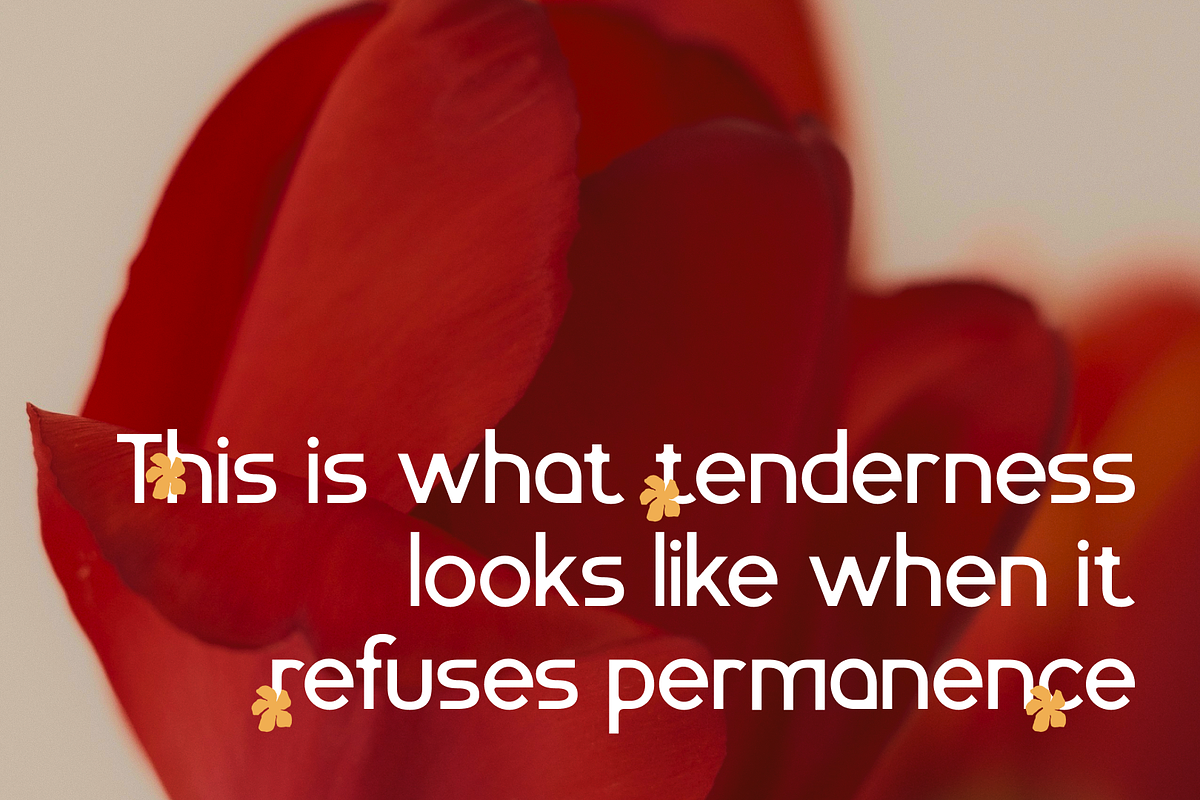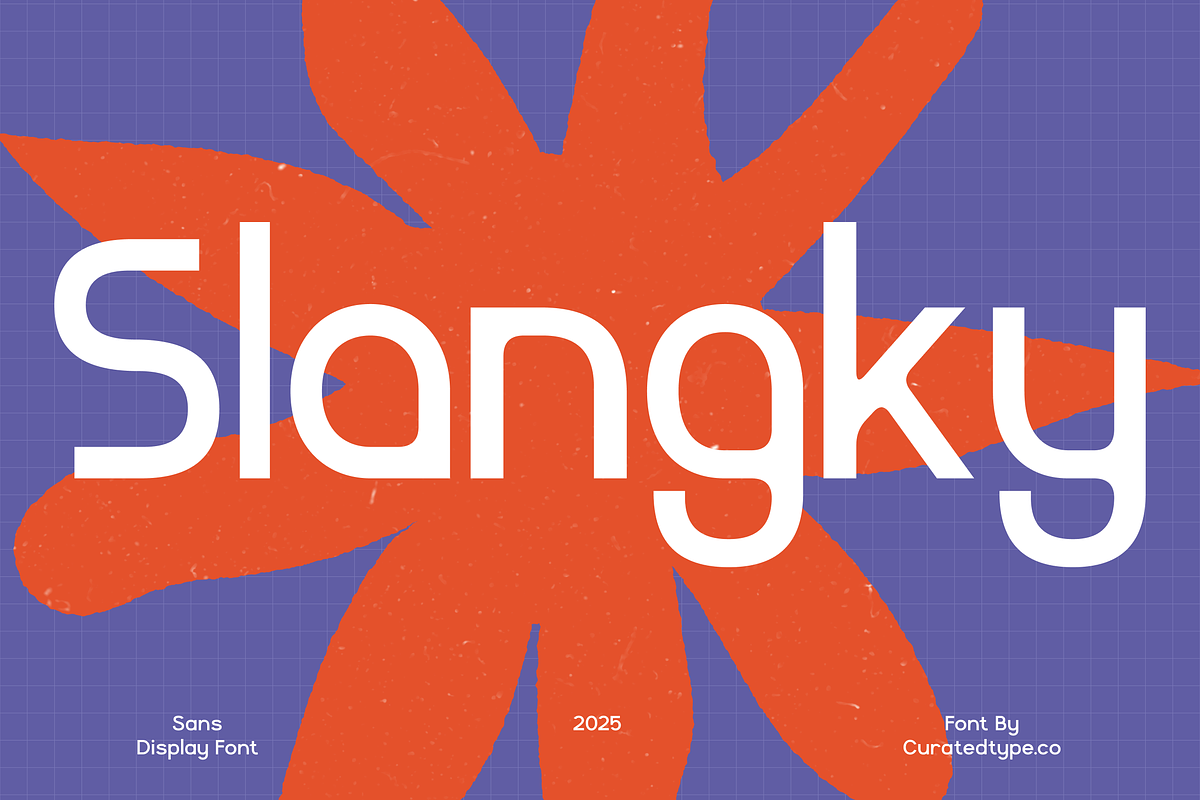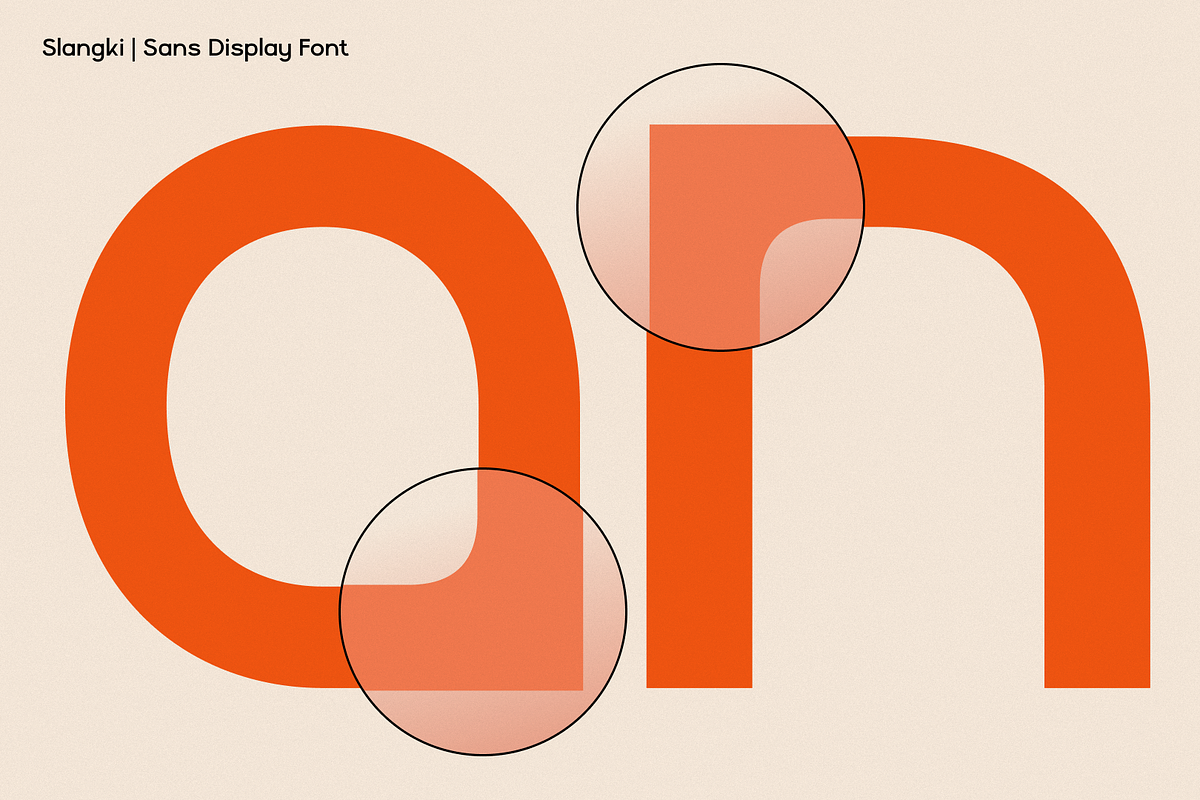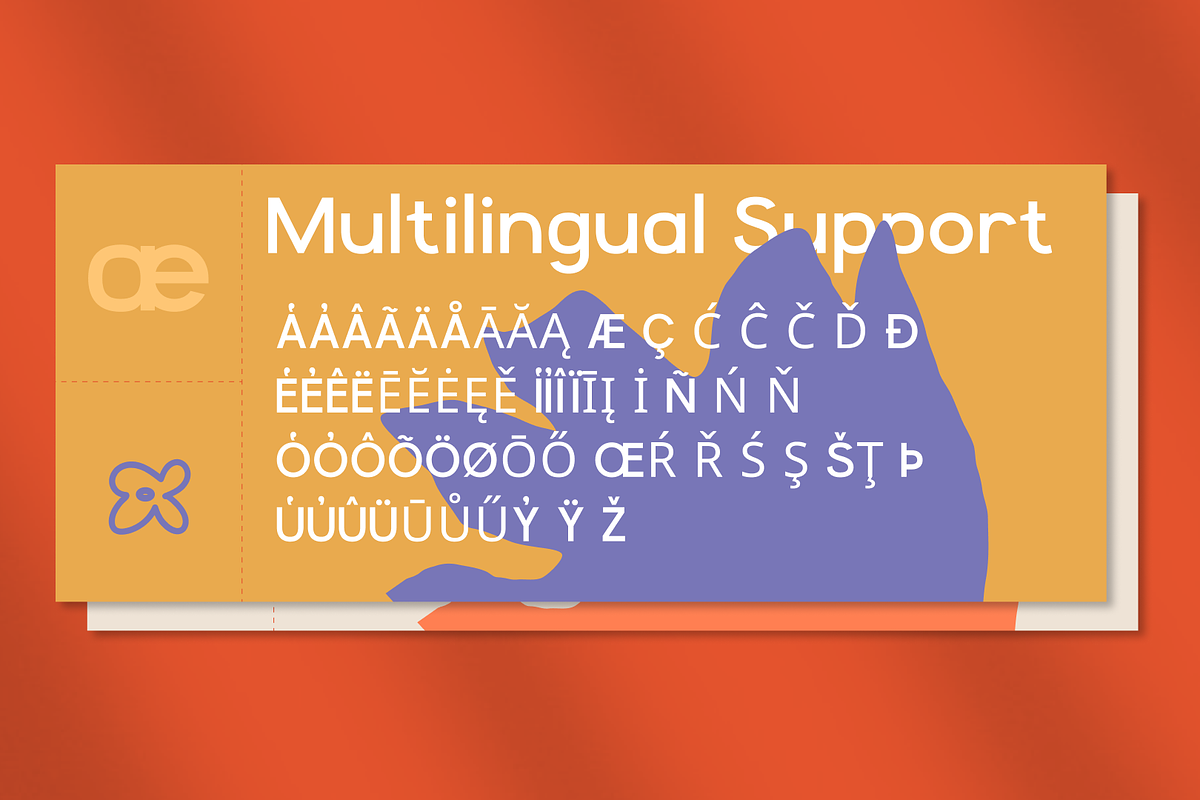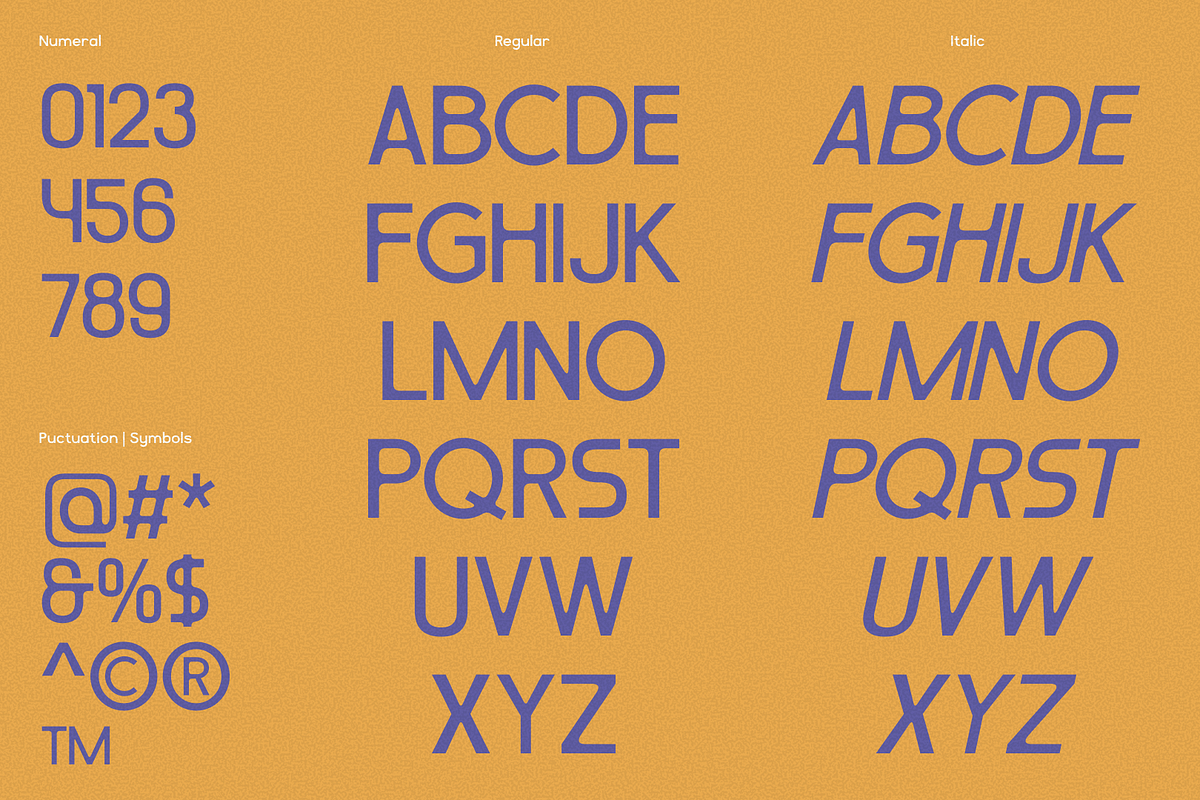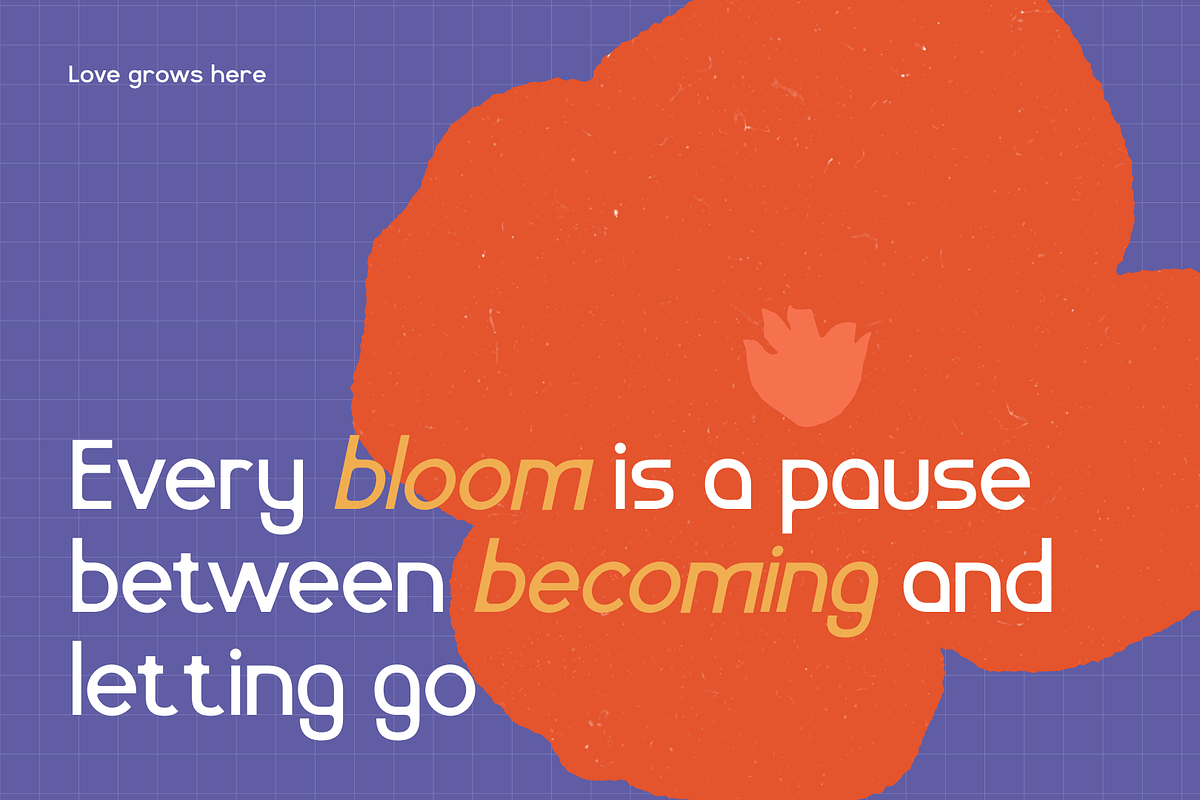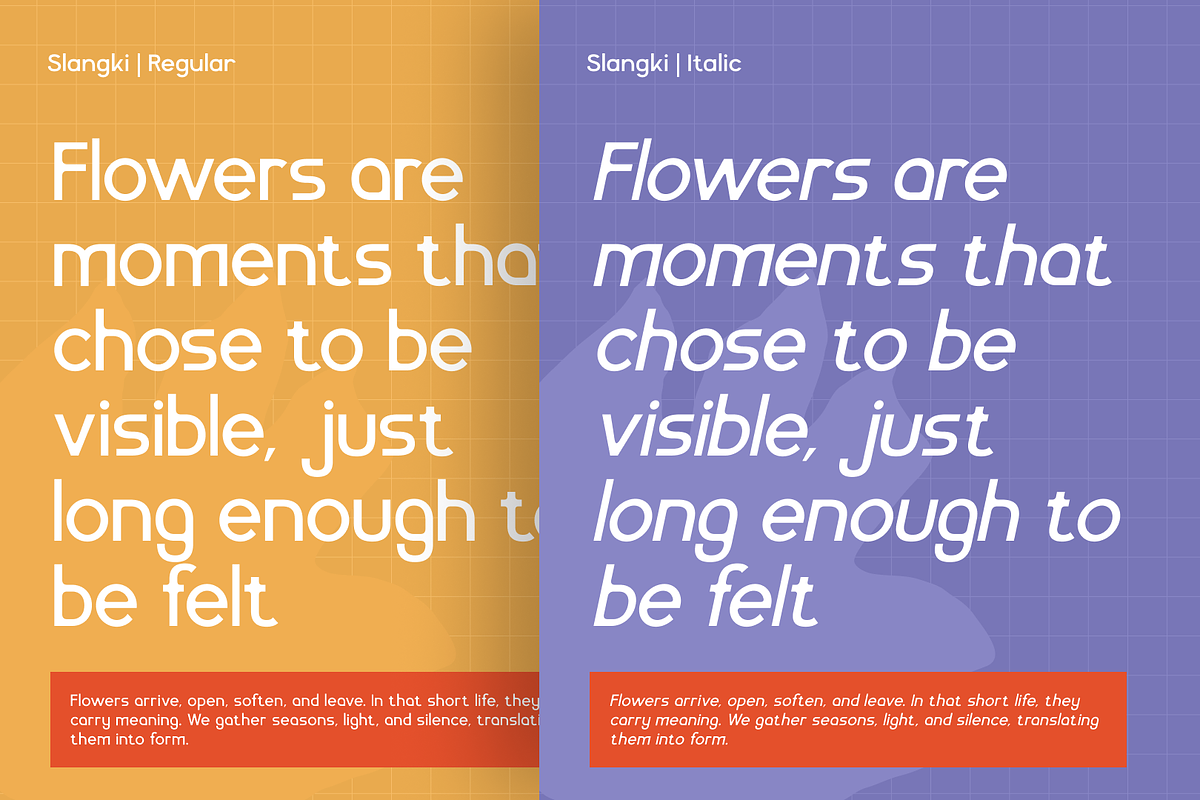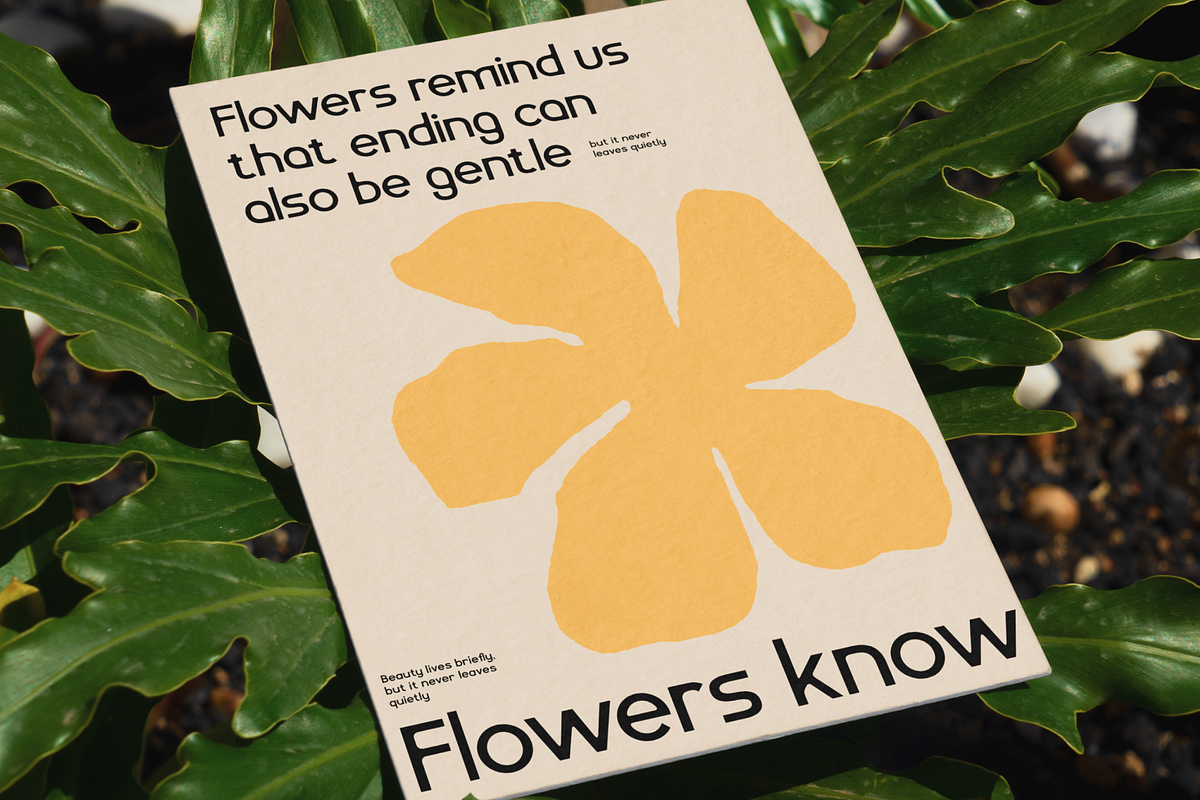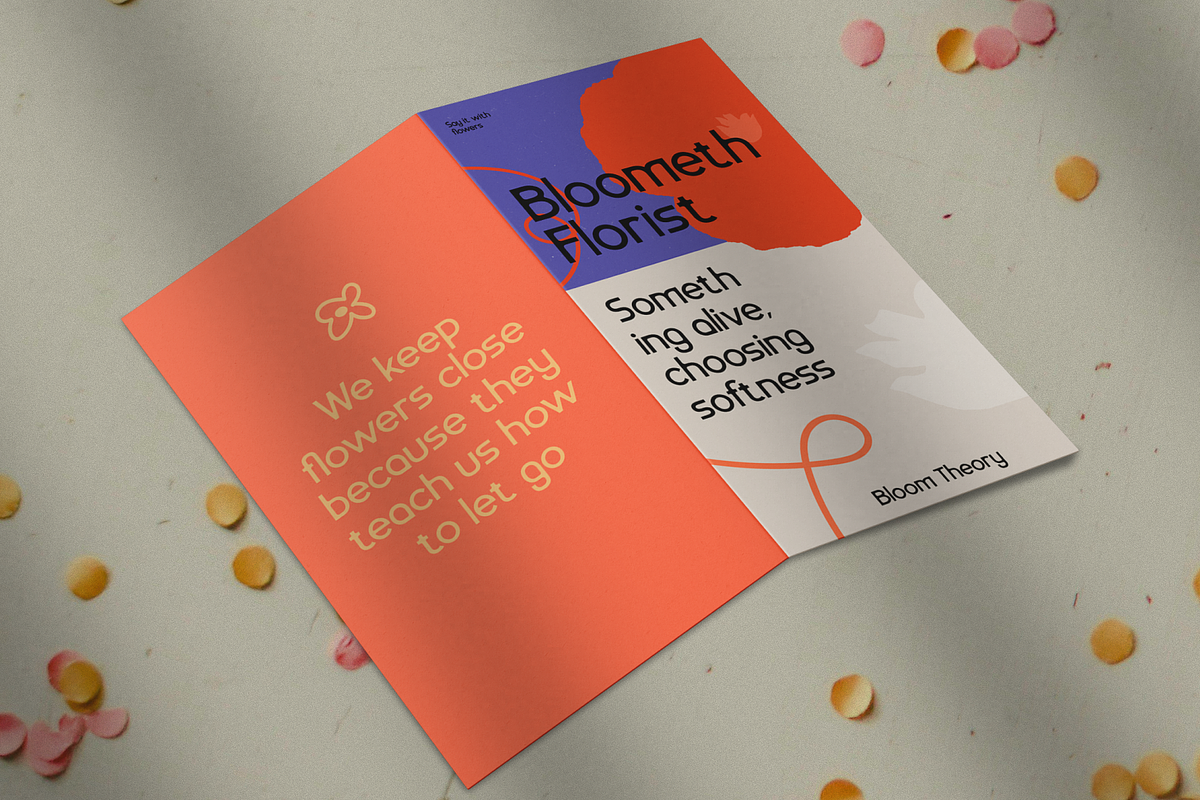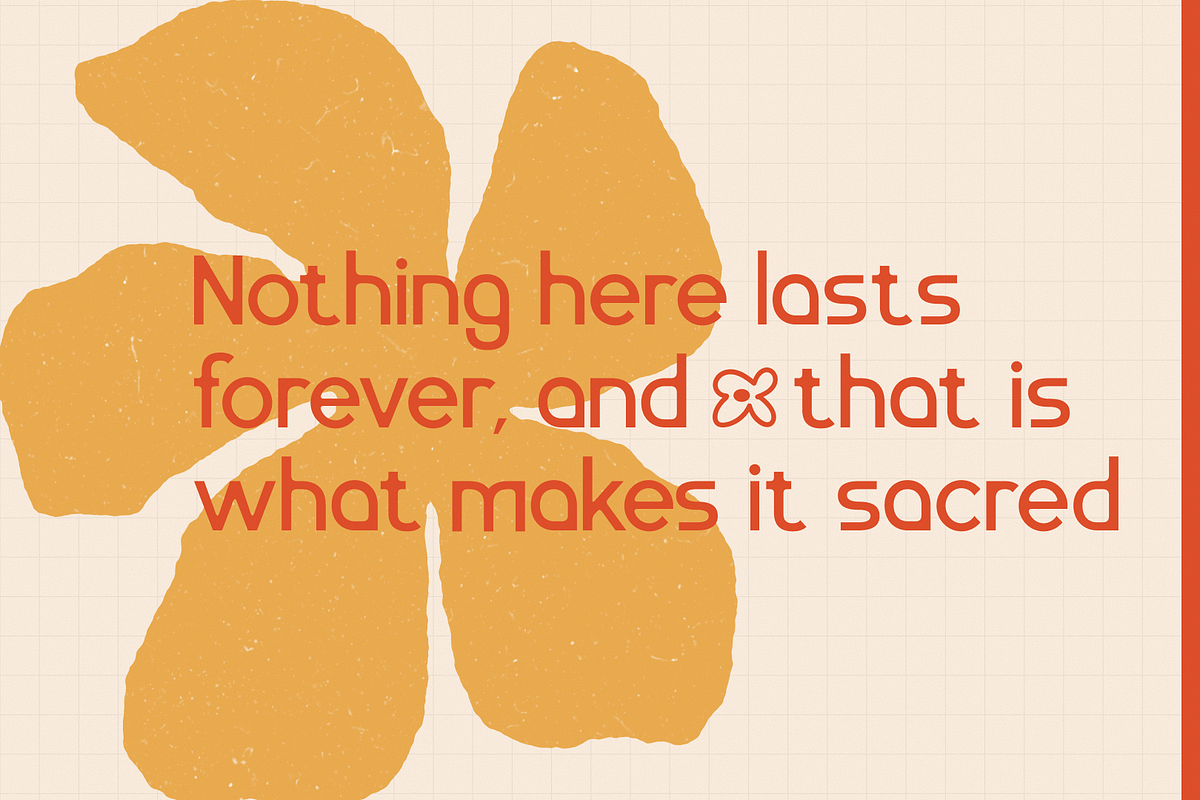
Slangky - Modular Display Sans
The Design Meet Slangky, a geometric sans-serif designed to break the monotony of standard digital typography. While it respects the clean lines of the neo-grotesque genre, Slangky introduces a playful, human energy through unexpected curves and simplified forms. Notable features include the minimalist single-stroke 'r', the fluid loop of the lowercase 'k', and a distinctive wavy tail on the uppercase 'Q'. These details transform a standard workable font into a statement piece.
The Application Versatility is at the core of Slangky’s DNA. Its uniform thickness and wide apertures ensure it remains crisp on digital screens, making it perfect for app interfaces and web headlines. Simultaneously, its bold personality shines in large-format print media, such as posters, logo marks, and merchandise. whether you are designing for a tech startup or a lifestyle brand, Slangky delivers a modern, approachable, and memorable visual tone.